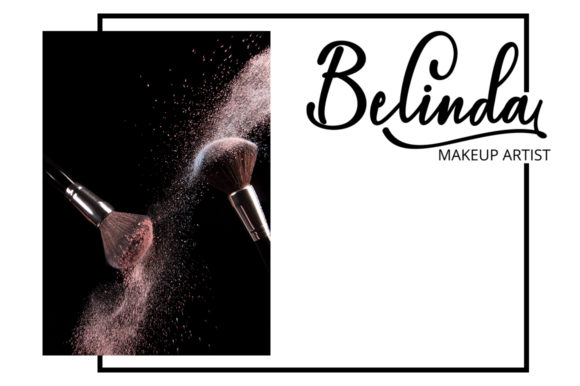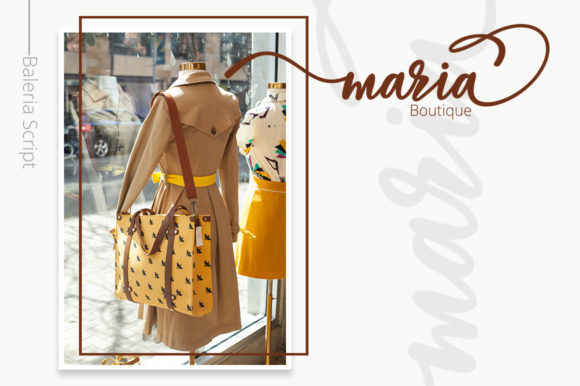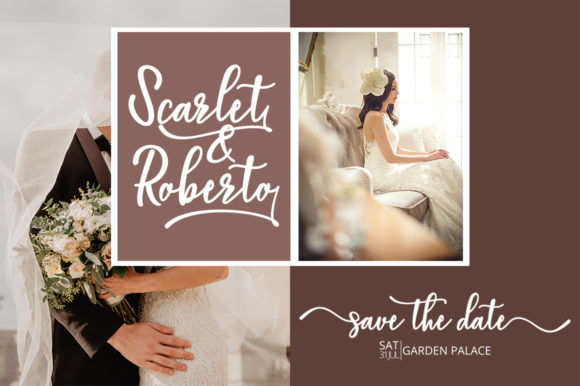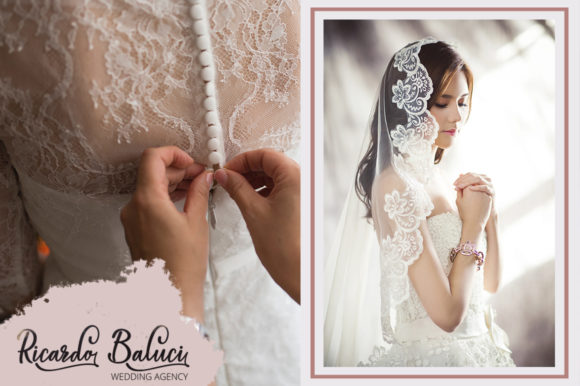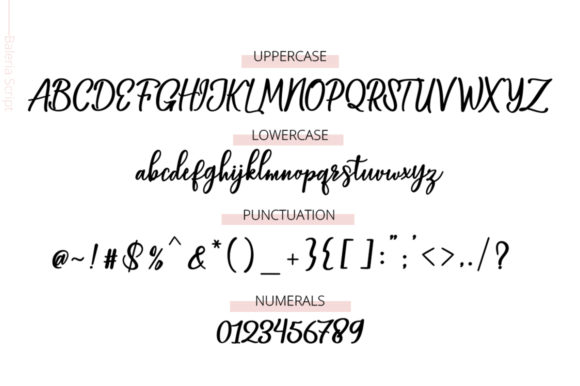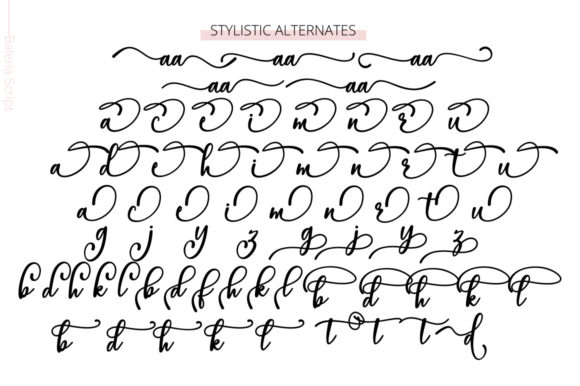
Discover the Art of Handwritten Elegance: Baleria Script Font
As a designer, there’s no greater joy than scribbling down a fresh idea on a blank page, watching it come to life with each stroke of the pen. It’s in these moments of creative freedom that we find inspiration, and that’s exactly what the Baleria Script Font embodies – a carefree, handwritten charm that breathes life into any project.
With its modern take on handmade calligraphy, the Baleria Script Font is a game-changer for designers looking to add a touch of sophistication to their designs. Its versatility makes it perfect for anything from branding and marketing materials to wedding invitations and editorial content. By incorporating the Baleria Script Font into your design arsenal, you’ll be able to elevate your work and make a lasting impression on your audience.
- Unique Characteristics: Elegant, cursive script design with subtle flair and connection between letters
Baleria Script Font Review
I recently had the chance to work with Baleria Script Font, and I must say it’s a beautiful addition to any design project. ✨ The flowing connections and elegant strokes make it perfect for creating a sophisticated, high-end feel. Whether you’re designing a wedding invitation or a luxury brand logo, Baleria Script is sure to impress.
Here are some of its standout features:
- ✨ Beautiful, cursive connections that add a touch of elegance to any design
- ✨ Highly customizable, allowing you to adjust the font to fit your specific needs
- ✨ Suitable for a wide range of design projects, from wedding invitations to business logos
- ⚠️ Limited font weights, which may limit your design options
- ⚠️ May not be suitable for text-heavy designs, as the font can become difficult to read at smaller sizes
Overall, I’m impressed with Baleria Script Font. While it may have some limitations, its beauty and elegance make it a valuable addition to any designer’s toolkit. With some careful planning and customization, you can create stunning designs that are sure to grab attention.
Getting the Most Out of Baleria Script
To get the most out of Baleria Script, use it for:
1. Titles and headings for a touch of elegance.
2. Quotes and testimonials for a personal touch.
3. Branding and logos for a unique identity.
Baleria Script is ideal for:
2. Fashion and beauty branding.
3. Luxury and high-end design projects.
Alternatives to Baleria Script Font
Pacifico is a modern script font that is perfect for creating a stylish and elegant look. It is ideal for use in headings, titles, and quotes, especially in fashion, beauty, and lifestyle design projects.
Comparison to Baleria Script Font: Pacifico has a more relaxed and casual feel compared to Baleria Script Font, which has a more formal and sophisticated look.
Great Vibes is a beautiful script font that is perfect for creating a romantic and whimsical look. It is ideal for use in headings, titles, and quotes, especially in wedding, travel, and food design projects.
Comparison to Baleria Script Font: Great Vibes has a more fluid and cursive feel compared to Baleria Script Font, which has a more structured and elegant look.
Alex Brush is a elegant script font that is perfect for creating a sophisticated and luxurious look. It is ideal for use in headings, titles, and quotes, especially in high-end fashion, luxury, and fine art design projects.